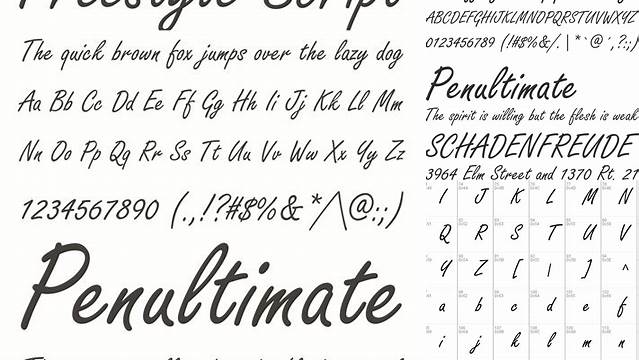
Freestyle Script Std: Font Guide & Best Uses
Fonte Freestyle Script Std: A Deep Dive into This Popular Font
Hey everyone, let's dive into the world of fonts, specifically the Freestyle Script Std. This font is a real gem, and it's super popular for a bunch of reasons. We'll explore what makes it tick, where you might see it, and why it's become a go-to for designers and anyone looking to add a touch of flair to their work. So, grab a coffee, sit back, and let's get to know this awesome font a little better! When you're talking about fonts, you're basically talking about the personality of your text. Just like how you choose clothes to express yourself, the font you pick speaks volumes about your message. The Freestyle Script Std is like that cool friend who always adds a bit of fun and elegance to the party. It's got this handwritten feel, but it's also super clean and readable, which makes it a winner in so many different situations.
This font is a member of the script family, which means it's all about those flowing, cursive letterforms. The Freestyle Script Std stands out because it's not overly formal or stuffy. It has a certain playfulness that makes it perfect for designs that want to feel approachable and inviting. Think about those fancy wedding invitations, or the logos for a boutique store; chances are, you might have spotted this font in action. But it's not just for fancy stuff! You can totally use it for websites, social media posts, or even your personal projects if you want to add a touch of that handwritten charm. We'll get into more specifics later, but trust me, this font is versatile! Its charm and versatility make it a strong contender for designers wanting to infuse their work with elegance and personality. This font isn't just about looks; it's about the feeling it evokes. It's a font that whispers, "Hey, let's have some fun!" and that's a powerful message in the world of design where first impressions are everything. It's friendly, it's elegant, and it's always ready to add a touch of class. The beauty of the Freestyle Script Std lies in its simplicity. It’s not overly complex, but it has enough character to make your designs pop. It's like the perfect accessory that complements any outfit. The font's design is carefully crafted to provide visual appeal. The slightly slanted strokes and the natural flow of the letters provide a dynamic visual that grabs attention. We're talking about a typeface with a personality, capable of making a statement in a crowded digital space. The legibility of the font is another important factor. While it has the appearance of a handwritten script, it is still very easy to read. It is a crucial advantage for designers because it guarantees that the message will be delivered without difficulty.
Key Characteristics of Freestyle Script Std
Alright, let's break down what makes the Freestyle Script Std tick. Knowing the specifics will help you understand why it’s so popular and how to use it effectively. First off, the most defining feature is its calligraphic style. It mimics handwriting, but it’s got a certain smoothness and consistency that you don’t always see in actual handwriting. The letters flow together, giving it a seamless and elegant feel. But it’s not just a fancy font; it's very practical. The designers made sure that the letters are clear and easy to read, despite the cursive style. This makes it suitable for various applications, from headlines to short paragraphs. Think about it this way: You want to grab someone's attention without making them squint. The Freestyle Script Std strikes that perfect balance. Another cool thing about this font is its versatility. It works well in a variety of contexts. It can be used for wedding invitations, logos, website headers, and even for creating social media graphics. Its adaptability stems from its balanced design: not too formal and not too casual. Because of the font's flexibility, designers and enthusiasts have found a reliable option for many applications. We can see this in the variety of projects where the font shines: wedding invitations, shop logos, and website banners. This adaptability makes the font a great choice for designers and artists trying to inject their work with a touch of sophistication and character. When talking about the Freestyle Script Std, we need to acknowledge its range of styles. It comes in different weights, which means you can adjust the thickness of the font. This provides you with more control over your design. You can use a lighter weight for a delicate touch or a bolder weight for a stronger statement. Also, consider the language support. The best fonts come with support for a wide variety of characters. The Freestyle Script Std does pretty well in this regard. This makes it usable for projects catering to different audiences globally. So, whether you are creating a design in English or another language, this font is often a reliable choice. The font also has a selection of alternative characters (also known as glyphs). These are different versions of the same letter. These alternatives can provide additional flair to your design. By experimenting with these glyphs, you can make your project unique and tailored to your exact vision. Using this approach can give your design a handcrafted and customized feel.
Where to Use Freestyle Script Std
Now, let’s get down to the nitty-gritty: where should you actually use the Freestyle Script Std? The answer is: almost everywhere! This is one of the great things about it; its versatility. But to make sure you're using it right, let's go over some examples. Wedding Invitations: This is a classic. The elegant, flowing script is perfect for setting a romantic and classy tone. Think about the names of the couple, the date, and any special messages. It just screams 'special occasion'. Logos: Many brands use this font to project an image of elegance and approachability. The script font adds a personal touch, which is especially effective for businesses that want to connect with their customers on a more intimate level. Imagine a boutique clothing store or a handmade jewelry shop, using the Freestyle Script Std in their logo. It creates a sense of luxury and craft. Website Headers: Want to grab someone's attention right away? Use this font for your website header. It can be a stylish way to introduce your brand. It makes a website more memorable and shows that you value design. A great header instantly conveys the website's personality. Social Media Graphics: Whether it’s Instagram posts, Facebook banners, or Pinterest pins, this font can take your social media game to the next level. The script font adds a touch of class to the visuals, helping your posts stand out in the busy social media landscape. Just make sure it fits well with your content. The best part? Using this font in these applications isn't difficult. There are many online resources to show you how to use it in your work. The key is to use it strategically. Don’t overuse it. It works best in short bursts, so it doesn't overwhelm the reader. Contrast it with a clean, simple font for the body text. This creates a balanced and visually pleasing design. In the world of design, the choice of a font is an art form, and Freestyle Script Std is a tool for expressing creativity. Its uses go beyond the examples we mentioned, making it a versatile option that can be adapted to different types of design projects. From stationery to advertising, this font is an effective way to communicate a brand's values, making it a great way to leave a lasting impression on your target audience.
Tips for Using Freestyle Script Std Effectively
Okay, so you're ready to start using the Freestyle Script Std? Awesome! But before you jump in, here are some tips to help you get the most out of it. First, consider the context. Is it for a wedding invitation, a website header, or something else? The context will affect how you use the font. For a formal invitation, you might go all out with the font, but for a website header, you’ll want to make sure it's readable and matches your site's overall style. Balance is key! Use Freestyle Script Std for headlines, titles, or short phrases. Then pair it with a more readable font for the body text. The goal is to create visual harmony. Don't let the font steal the show. It should be a complement to the content. This leads to readability, which is super important. Make sure your audience can easily read the text. Too much of this font can be overwhelming. Consider the font size. You don't want the text to be too big or too small. Experiment until you find a good balance. Remember, the goal is to make the design easy to read and visually appealing. Choose the right color. The color of the font can affect the overall look and feel of your design. For a wedding invitation, you might use a classic color like black or gold. For a website, you might use a color that matches your brand's palette. The best way to get it right is to experiment and check how the font looks with the rest of your design. And, as a final tip, don't be afraid to experiment! Play around with different weights, sizes, and colors to see what works best for your project. See how the font interacts with images or other design elements. This will help you develop your style and make your designs unique. The most experienced designers always try different things. The best way to learn is by practice, so dive in and have fun. With practice, you'll become a pro at using this font. The effective use of Freestyle Script Std needs a sense of creativity. Understanding the font's limitations is just as important as knowing its strengths. By following these suggestions, you'll be able to include this font to elevate your design projects, making them more stylish and captivating. It is about using the font to enhance your message. It is not just about using the font, but how to make it work for you. Therefore, learn, adapt, and create!
So, there you have it! The Freestyle Script Std is a fantastic font that can add elegance, personality, and a touch of charm to any design project. Whether you’re designing a wedding invitation, a logo, or a website header, this font offers a unique blend of style and readability. By understanding its characteristics, knowing where to use it, and following some simple tips, you can harness its power and make your designs shine. It’s an excellent tool for communicating your brand's story. The ability to use this font can add elegance and flair to your designs, from a website to personal projects. Go out there and experiment! Have fun, and let your creativity flow. Happy designing, folks! This amazing font is a great tool to elevate your work. Remember the principles of design and use Freestyle Script Std effectively. By using it properly, you can create memorable and striking designs that leave a lasting impression. With the proper approach and a bit of creative thought, this versatile font will surely be one of your go-to choices for many design projects. Use your imagination, and the possibilities are endless! So, whether you are a professional designer or an enthusiast, Freestyle Script Std is a versatile choice, ready to help you achieve your creative goals. Happy creating!